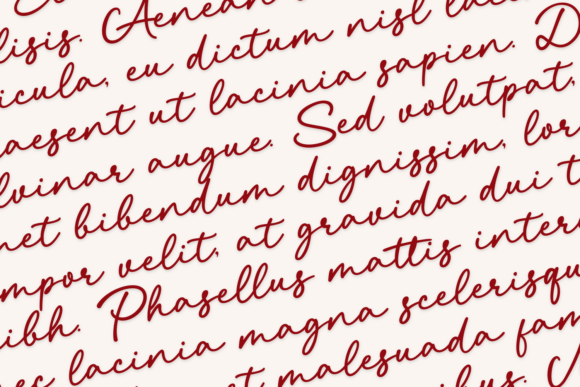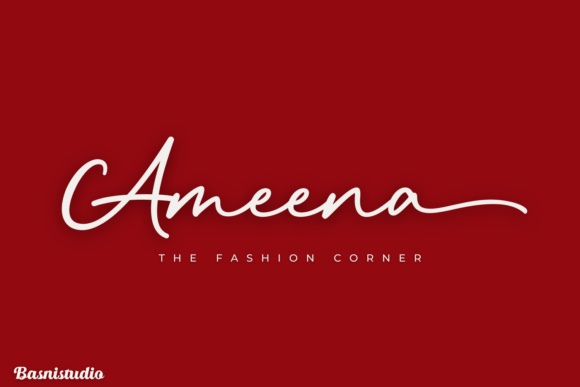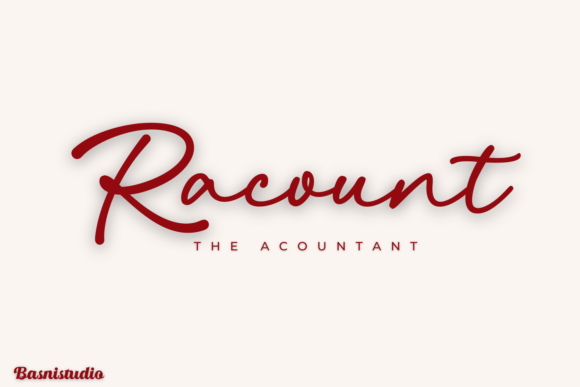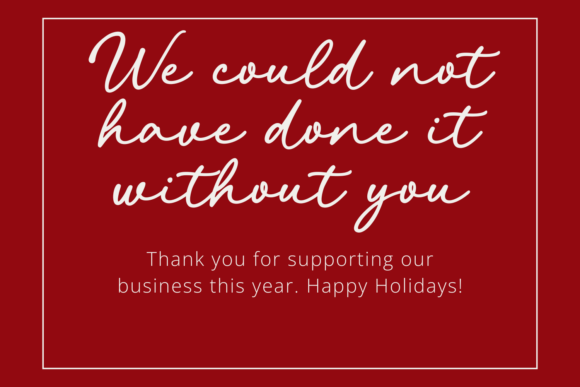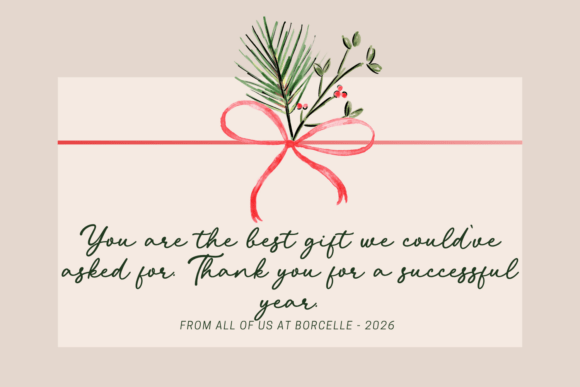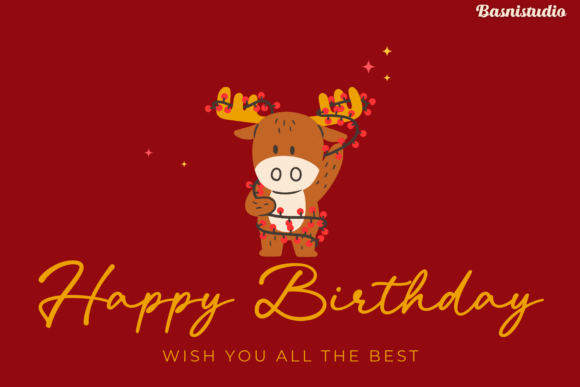
Unlock the Magic of Bellama Signatura Font Font
As the holiday season approaches, designers everywhere are on the hunt for the perfect font to add a touch of glamour and sophistication to their festive designs. And that’s where Bellama Signatura Font Font comes in – a dazzling, fluid signature script font that’s specifically designed to make your holiday creations stand out from the crowd.
Bellama Signatura Font Font is more than just a pretty face; it’s a valuable tool for designers who want to add a personalized, high-end touch to their work. With its elegant, thin upstrokes and bold, smooth downstrokes, this font is perfect for creating luxurious and bespoke designs that exude premium quality. Whether you’re designing high-end Christmas cards, formal party invitations, or exclusive gift certificates, Bellama Signatura Font Font is the perfect choice for conveying elegance and sophistication.
Bellama Signatura Font Font Key Features
- Font Family: Bellama Signatura Font Font is a unique and elegant script font that features 8 styles, including regular, bold, italic, and bold italic.
- Unique Characteristics: Bellama Signatura Font Font features a beautiful, handwritten feel with subtle flair and elegance, making it perfect for creative and design-driven projects.
Bellama Signatura Font Review
As a designer, I was excited to try out the Bellama Signatura Font, and overall, I’m pleased with its performance. Here’s my honest review:
- ✨ Unique design: The Bellama Signatura Font has a distinct, elegant feel that sets it apart from more common fonts.
- ✨ High legibility: The font is well-designed for body text, making it easy to read even in smaller sizes.
- ✨ Versatile: The font comes in a range of weights, from light to bold, making it suitable for various design applications.
- ⚠️ Limited language support: The font only supports Latin-based languages, which may be a limitation for designers working with non-Latin scripts.
- ⚠️ Not suitable for display headings: While the font is great for body text, it may not be the best choice for display headings, as it can look a bit too casual.
Overall, I’d give the Bellama Signatura Font 4 out of 5 stars. It’s a solid choice for designers looking for a unique, legible font for body text. However, its limitations may make it less suitable for more complex design projects.
The Bellama Signatura Font is perfect for:
- Creating elegant and sophisticated designs.
- Adding a touch of luxury and refinement to your branding.
- Designing wedding invitations, stationery, and other special occasion materials.